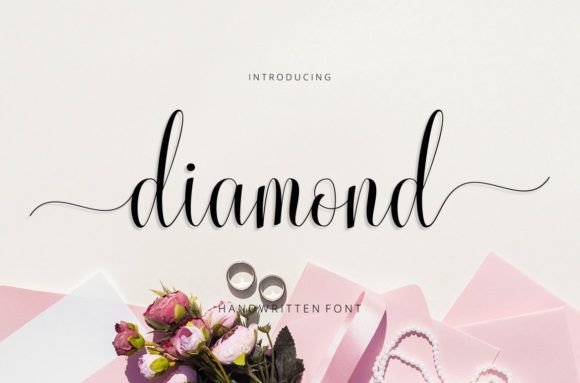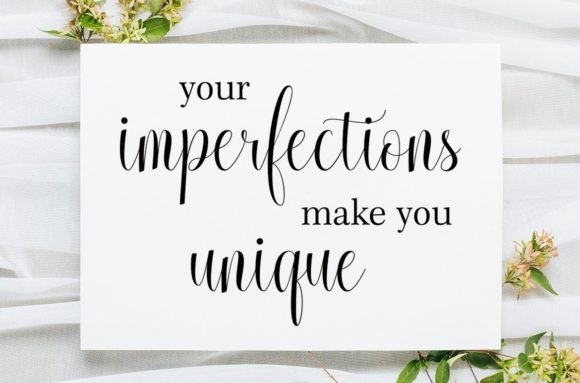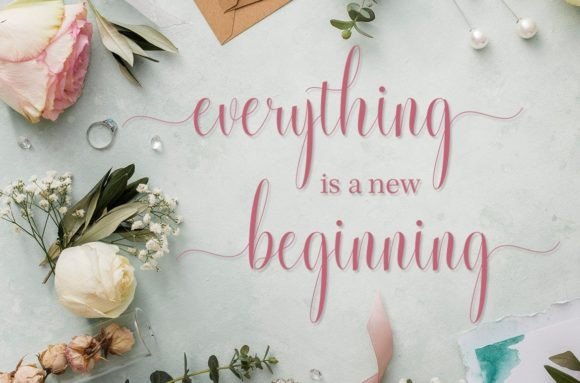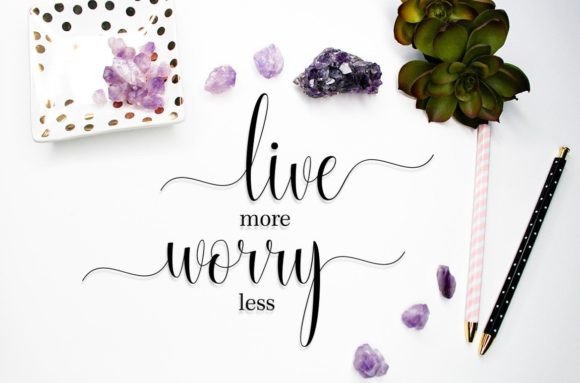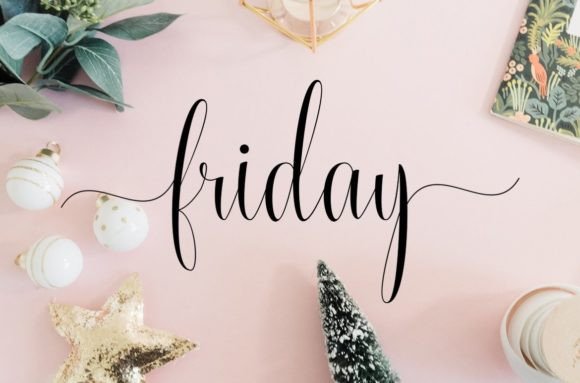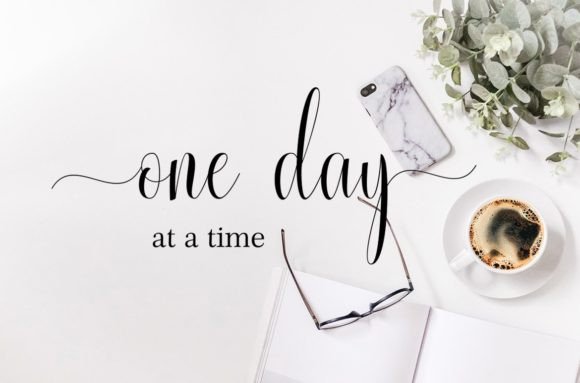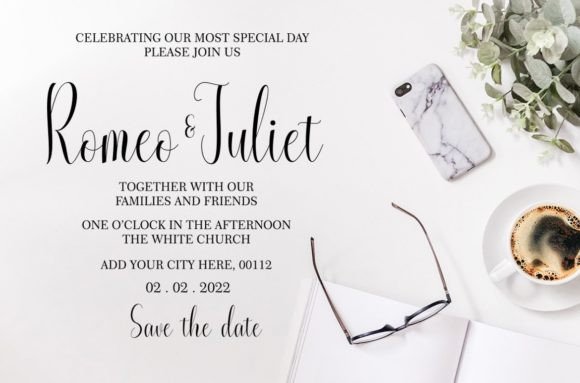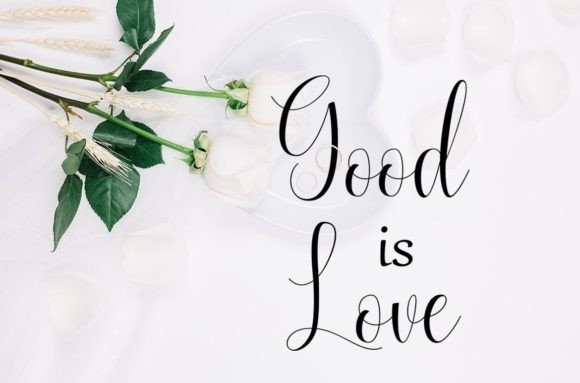
Diamond Font
About Diamond Font
“Diamond Script” is introduced as a fresh and modern script font with a handmade calligraphy style, featuring decorative characters and a dancing baseline. This font is described as particularly beautiful on invitations, greeting cards, branding materials, business cards, quotes, posters, and more.
The key features highlighted in the description include the handmade calligraphy style, decorative characters, and a dancing baseline. These elements collectively contribute to the font’s aesthetic appeal, making it suitable for a variety of creative projects.
The PUA encoding feature enhances the user experience by providing easy access to a wide range of glyphs and ligatures. This allows for seamless customization, enabling users to explore different letter combinations and design variations effortlessly, adding a personalized touch to their creations.
In summary, “Diamond Script” is not just a font; it’s a contemporary and stylish script designed to enhance the visual appeal of invitations, greeting cards, branding materials, and more. The inclusion of decorative characters and a dancing baseline adds a touch of uniqueness, and the PUA encoding feature ensures easy access to various glyphs and ligatures for enhanced customization.